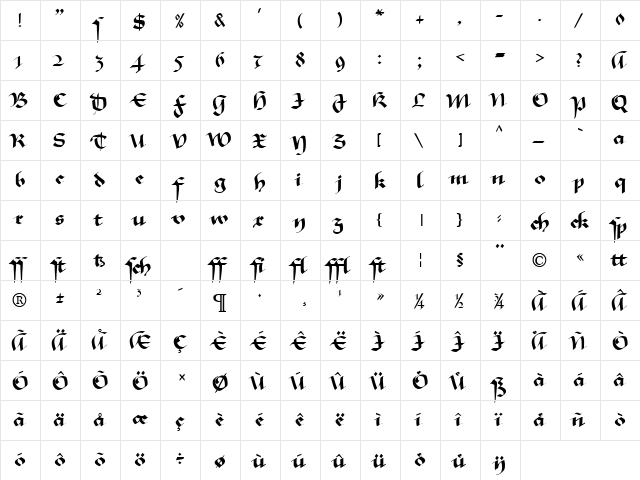
MA GKursiv1 DB Normal
MA GKursiv1 DB is a composed and adaptable typeface that performs quietly and consistently across a wide range of design contexts. Its italic angle brings a sense of urgency and motion to the letterforms.